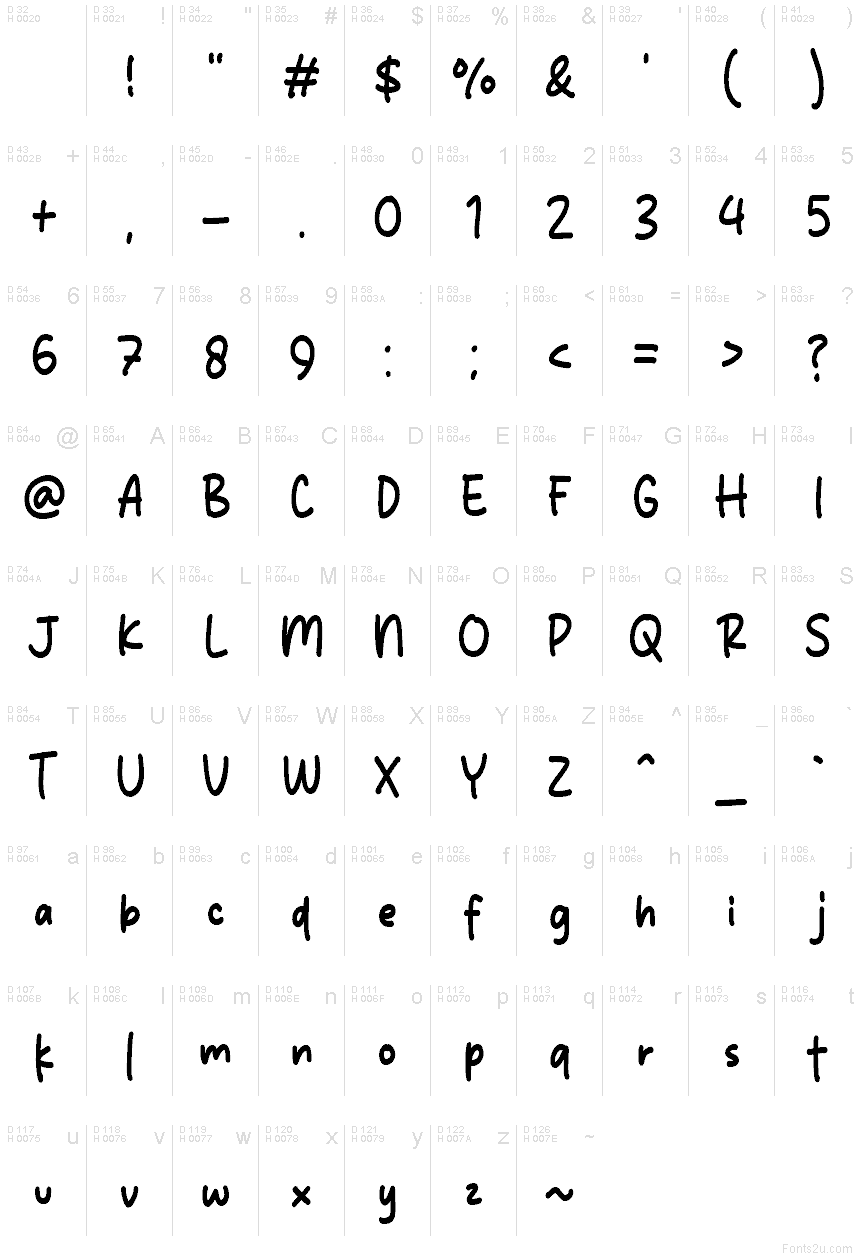
Rich Brilliant
Rich Brilliant font by MJType features a smooth handwritten style that pairs elegance with a friendly look. Casual and modern aesthetic driven, the versatile font showcases expressive feel and neat detailing; corner and line curves. Have your visual designs step up a level by downloading this free handwritten font!